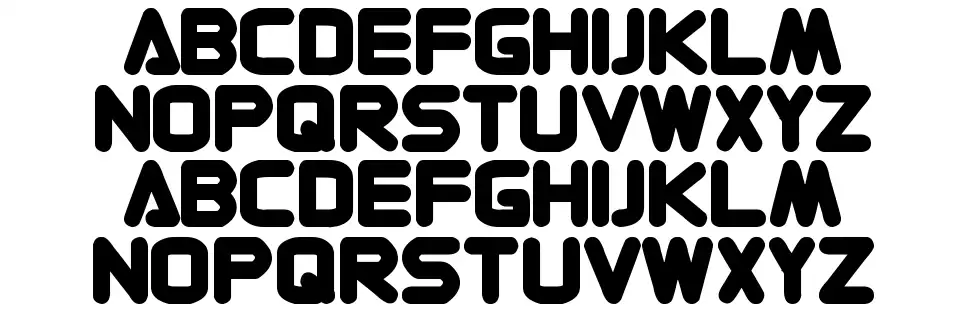
46+ Fila Font Pictures. Use it for any design idea that needs a bold twist. The closest font we can find for fila logo is contemporary regular, which is a free display font designed by milabrya.
The closest font we can find for fila logo is contemporary regular, which is a free display font designed by milabrya.